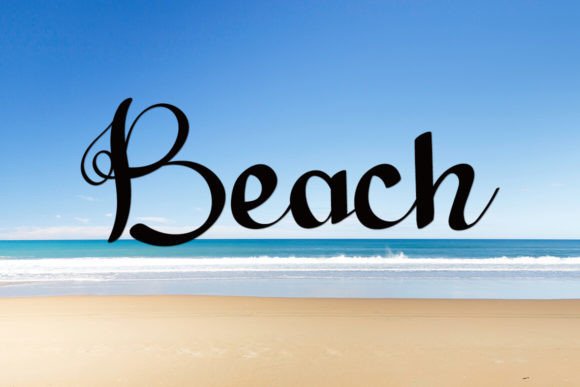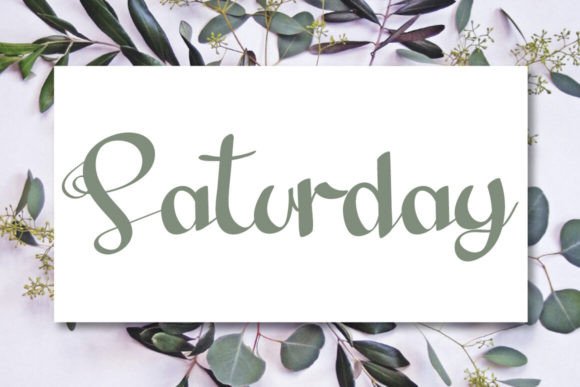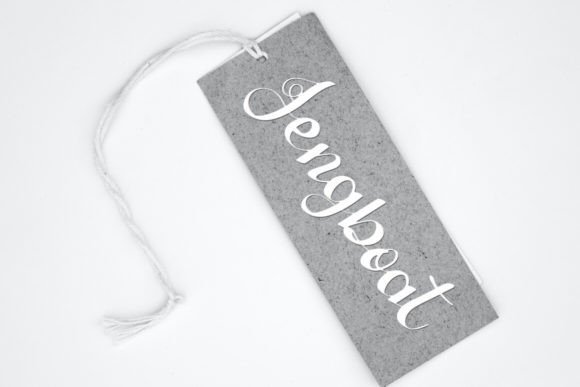
The Perfect Font for Making a Lasting Impression
As a designer, there’s nothing quite like the thrill of creating a new project from scratch. The blank canvas, the endless possibilities, the excitement of bringing a vision to life. But, let’s face it – not every font is created equal. Some fonts can make or break a design, and that’s where the Barbilla Font comes in.
This elegant and refined font is designed to capture the attention of your audience and leave a lasting impression. With its graceful curves and intricate details, it’s the perfect choice for designs that require a touch of luxury and refinement. Whether you’re working on a high-end branding project or creating a sophisticated marketing campaign, the Barbilla Font is sure to elevate your design to the next level.
Barbilla Font Key Features
- Unique Characteristics: The font features a unique blend of modern and traditional elements, with a distinctive slant and subtle flair, making it perfect for designers seeking a stylish yet readable font.
- Script Support: Barbilla Font includes comprehensive support for Latin and Cyrillic scripts, as well as various diacritical marks and symbols, making it a versatile choice for multilingual projects.
- Font Weight: The font offers a range of weights, from Light to Bold, allowing designers to choose the perfect weight to match their project’s tone and style.
Barbilla Font Review
I recently had the chance to work with the Barbilla font, and I must say it’s an interesting choice for designers. Here are my honest thoughts.
- Unique design: Barbilla has a distinct, vintage feel that can add a touch of personality to any project.
- Good for display use: The font’s bold, decorative style makes it suitable for headings and titles.
- Readability issues: The font’s intricate design can make it difficult to read, especially at smaller font sizes.
- Not ideal for body text: The decorative style can be overwhelming when used for large blocks of text.
- Lack of consistency: The font’s irregularities can make it look uneven or unpolished in certain contexts.
Overall, I think Barbilla is a great choice for designers who want to add some flair to their projects. However, it’s not a one-size-fits-all solution, and its limitations should be carefully considered before using it for critical text or large blocks of content.
Barbilla Font Practical Application Guide
Getting the Most Out of Barbilla Font
For optimal use of Barbilla font, follow these tips:
– Use it for titles and headings to add a touch of elegance.
– Pair it with other fonts for a unique combination.
– Experiment with different font sizes and colors to create visual interest.
Barbilla font is commonly used for:
– Luxury branding and advertising
– High-end packaging design
– Elegant invitations and stationery
Alternatives to Barbilla Font
Lato Font is a modern sans-serif font designed by Łukasz Dziedzic. It is a versatile font that can be used for both headings and body text. Lato Font is suitable for digital and print media, including websites, magazines, and advertising materials.
Lato Font is similar to Barbilla Font in its clean and minimalist design, but it has a slightly more geometric feel. It is also more versatile and can be used in a wider range of applications.
Abril Fatface Font is a luxurious and elegant script font designed by Pablo Parra. It is perfect for creating a high-end and sophisticated look in designs such as invitations, wedding stationery, and luxury branding.
Abril Fatface Font is different from Barbilla Font in its more ornate and decorative design. It is better suited for projects that require a touch of luxury and sophistication.